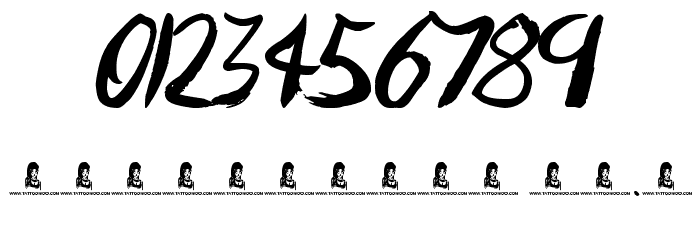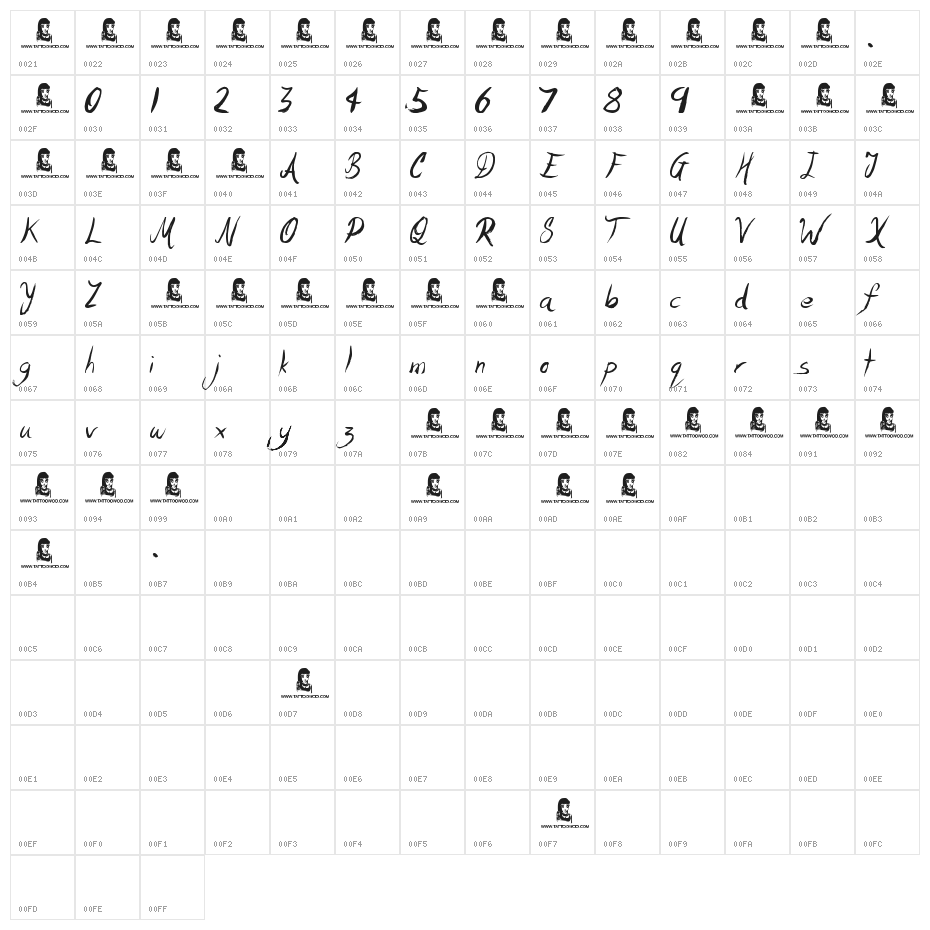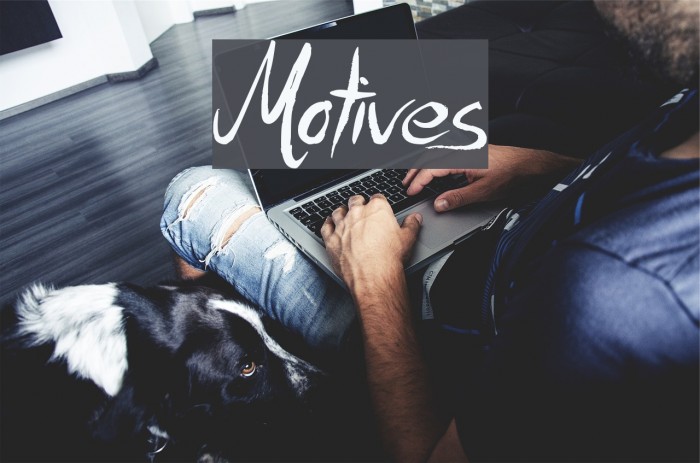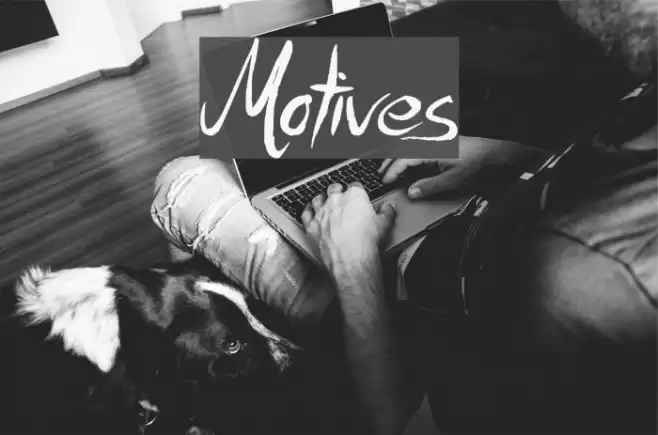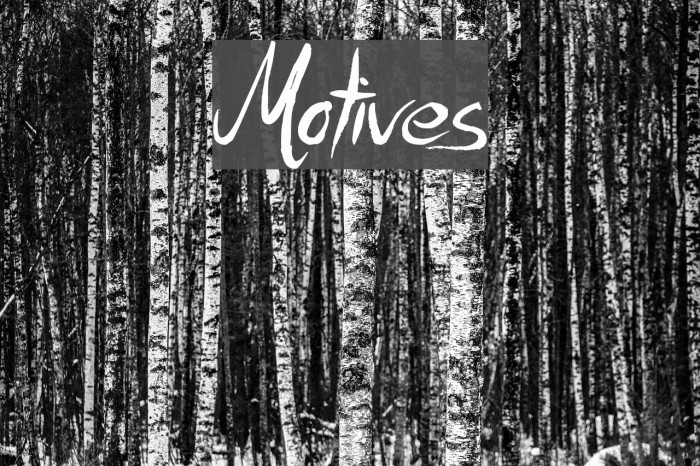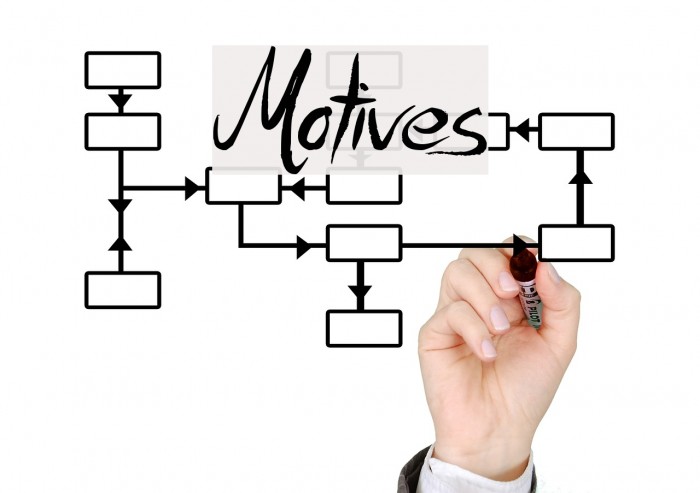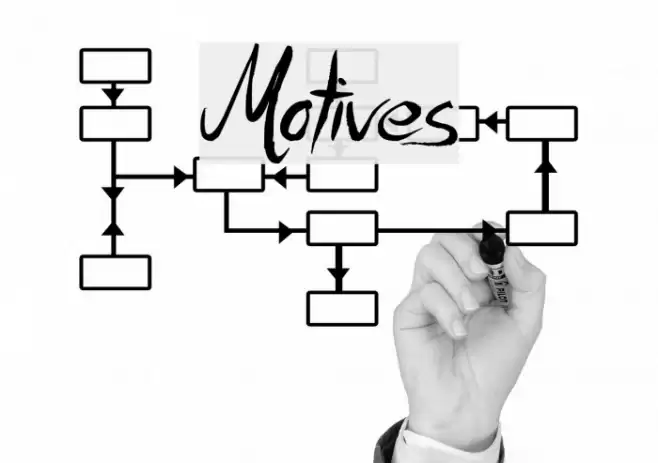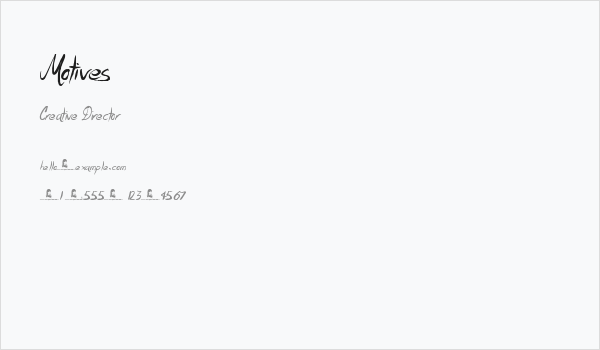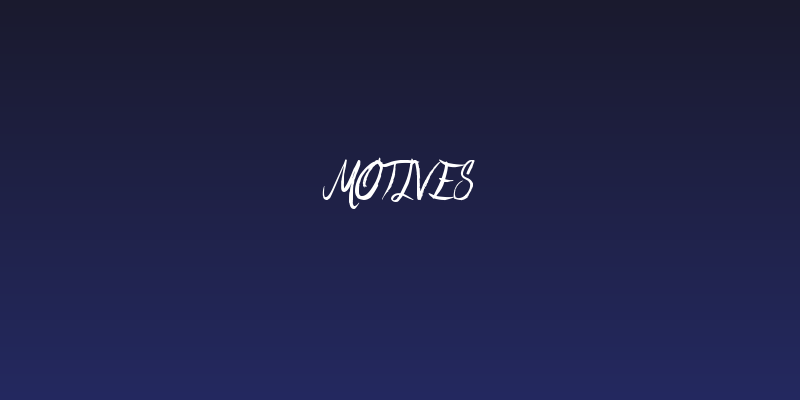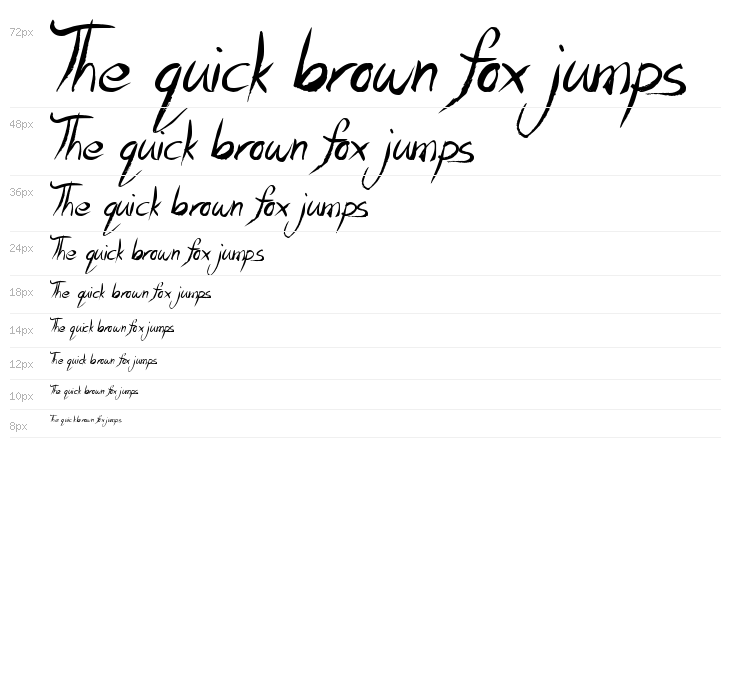
Motives Font
Motives Description
This font features a dynamic and expressive script style, characterized by its bold and fluid strokes. The letters are crafted with a sense of motion, giving them an energetic and artistic appearance. The uppercase letters are particularly striking, with dramatic flourishes and varying stroke widths that add to the font's visual interest. The lowercase letters maintain a consistent style, complementing the uppercase with their own unique flair. Numbers are equally bold, maintaining the overall aesthetic. This font is ideal for projects that require a touch of creativity and personality.